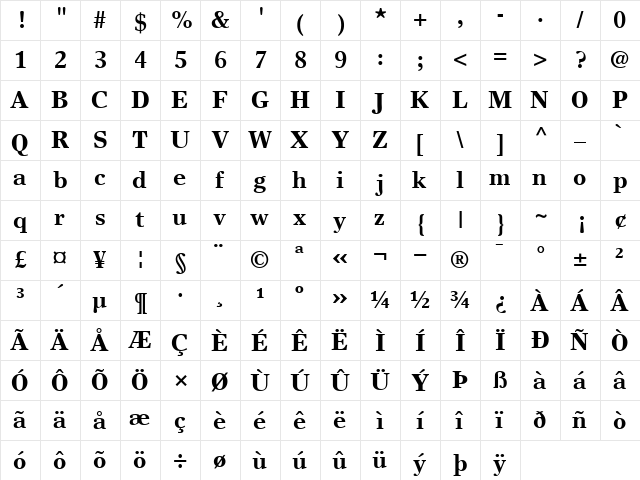
TimesEuropa Bold Font Preview
TimesEuropa Bold
TimesEuropa Bold Font Details
Design Context for TimesEuropa Typeface
TimesEuropa is a composed and adaptable typeface that performs quietly and consistently across a wide range of design contexts. The heavy weight commands attention and anchors typographic hierarchies.
Pro Tip: Pair TimesEuropa with a font of contrasting weight or personality to build a more expressive typographic hierarchy.